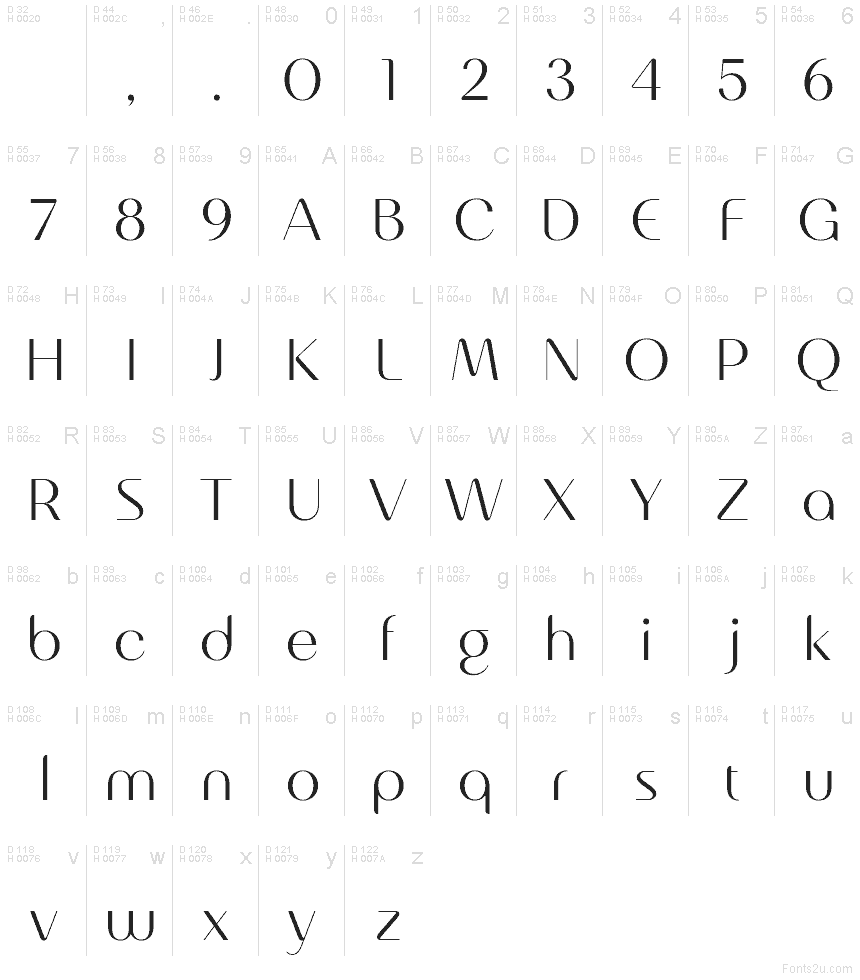
Nearo Light font by Digitype Studio is a free sans serif font. Its signature look comes from ultra-fine strokes meeting smooth, generous curves, creating a sleek rhythm that feels airy yet confident. Subtle sculpted cuts lend a polished, modern sheen, while the light weight keeps compositions crisp and breathable. As part of the Nearo family, it brings a refined continuity across headings and accents.
Using Nearo Light, headlines glide, logos feel luxe, and fashion branding, beauty packaging, editorial covers, posters, and social media graphics all gain a clean, high-end finish. This free font shines with roomy tracking at large sizes; pair it with a neutral grotesk for body copy to let the elegant forms do the talking.